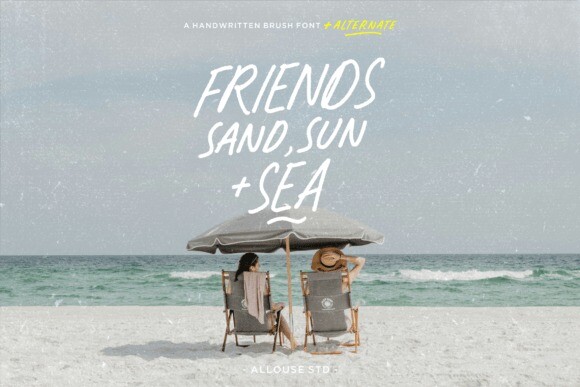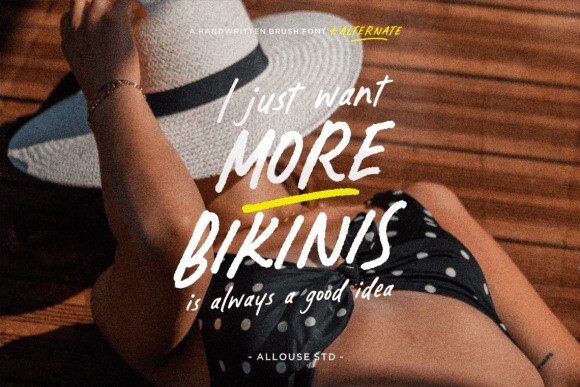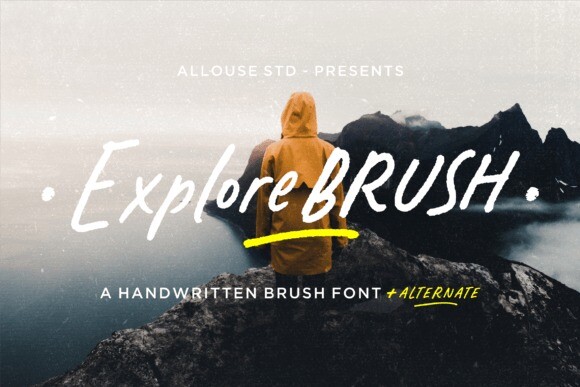
Explorebrush Font
Explorebrush Font is perfect for product packaging, branding project, megazine, social media, wedding, or just used to express words above the background.